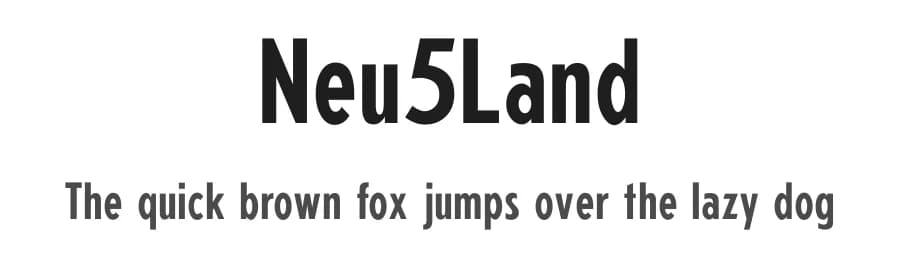
About Neu5Land Font
Fontfamily Neu5Land by Uwe Borchert
This Typeface ist based on the Schmale Erbar Grotesk
(Jakob Erbar, 1922ff) and was very popular on signs
in the former German Democratic Republic/Deutsche
Demokratische Repubik (GDR/DDR)
Neu5Land Font
by Uwe Borchert